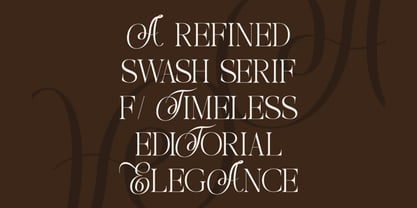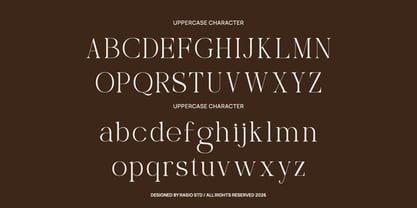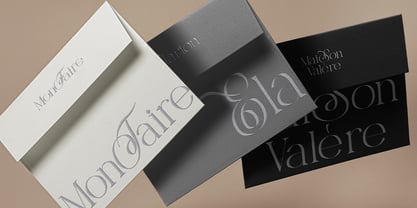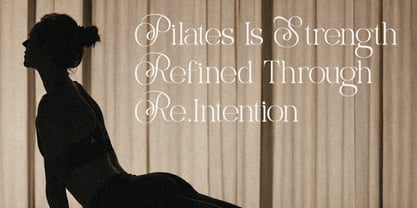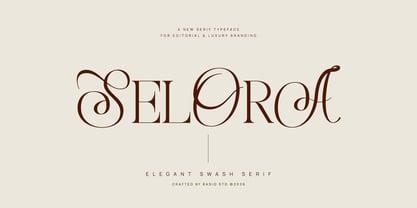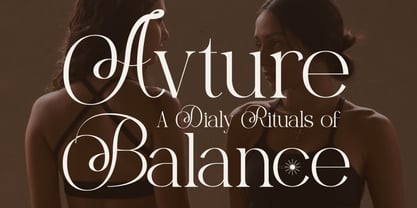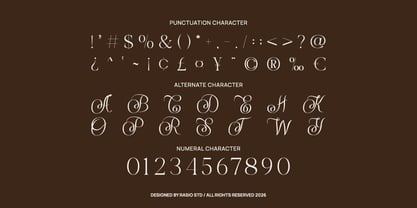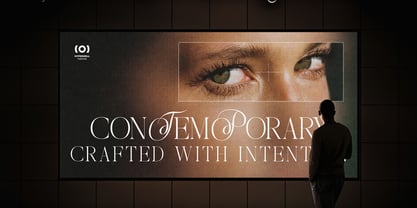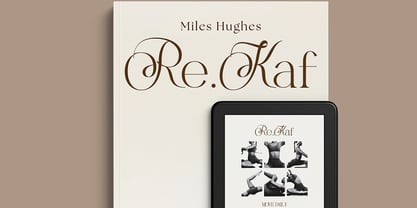
Selora
by Rasio Studio
The Selora Font Family was designed by Fajar Indra and published by Rasio Studio. Selora contains 1 styles. More about this family
Selora is an elegant swash serif typeface crafted for editorial sophistication and luxury branding. Featuring refined high-contrast strokes, graceful curves, and expressive swash alternates, Selora delivers a timeless yet contemporary aesthetic. Selora is perfectly suited for luxury branding, fashion campaigns, beauty products, wedding invitations, lifestyle editorials, boutique logos, premium packaging, and curated social media visuals. Its expressive swashes and refined contrast make it ideal for projects that demand elegance, romance, and a sophisticated visual identity while maintaining professional readability.
Designers: Fajar Indra
Current Foundry: Rasio Studio